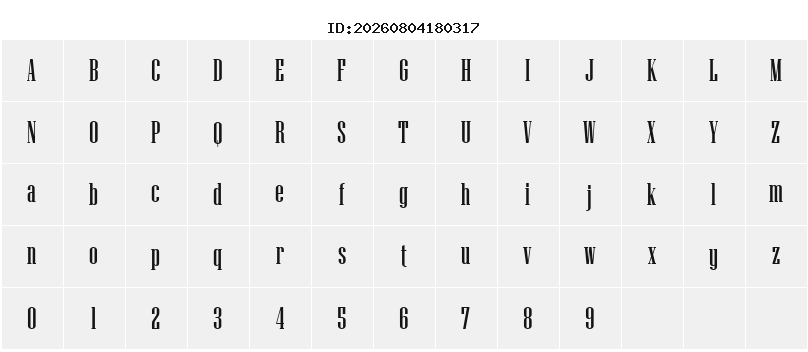
• Font Name: Niagara Solid
• Font ID: FB Niagara Solid Regular
• Full Font Name: Niagara Solid
• PostScript Name: NiagaraSolid-Reg
• Designer: Tobias Frere-Jones
• Manufacturer: The Font Bureau, Inc.
• Description: While not a revival in the strictest sense of the word, Niagara recalls the crisp, elegant geometry found in some of the best American styles from the thirties and forties. The four condensed weights were designed by Tobias Frere-Jones, who found inspiration in the straight-sided geometric fonts from that era.
Niagara Solid.ttf is a modern, elegant sans-serif font designed for ultimate readability and visual harmony. Perfect for branding, headlines, web design, and print materials.